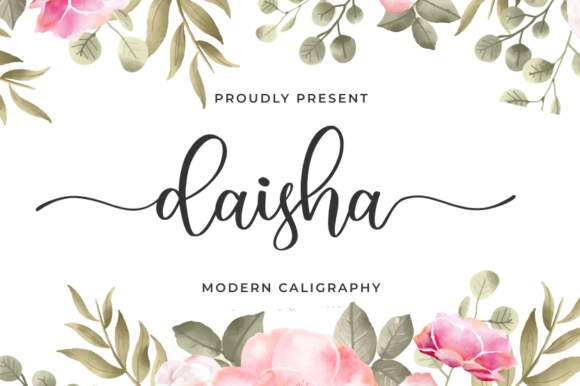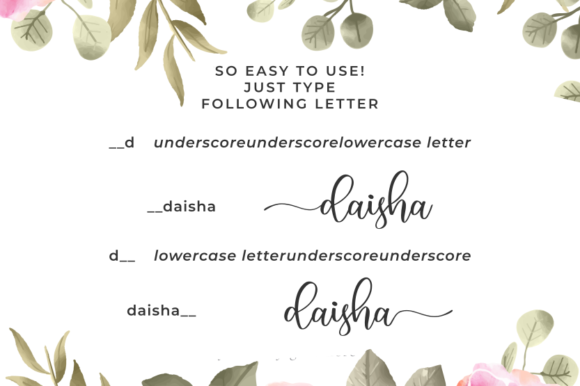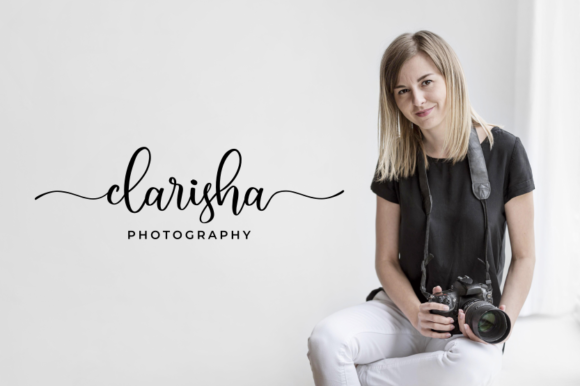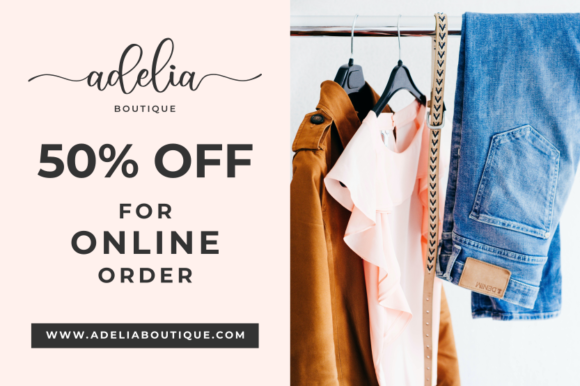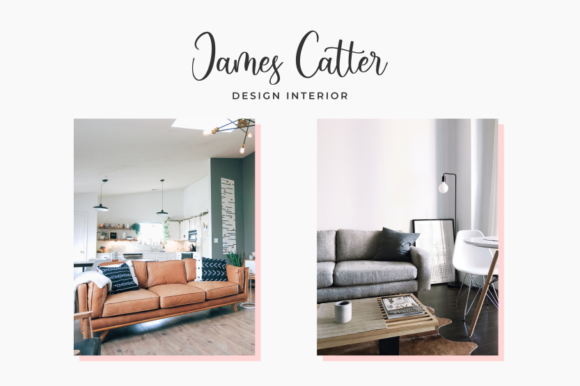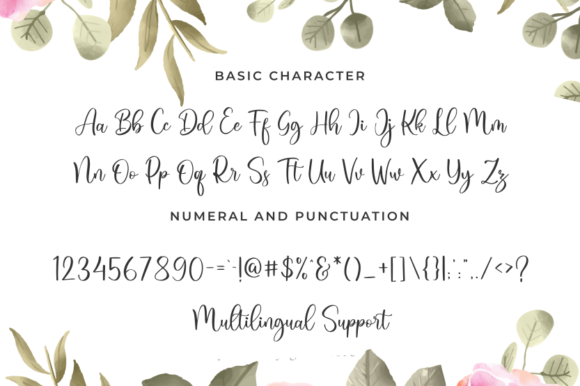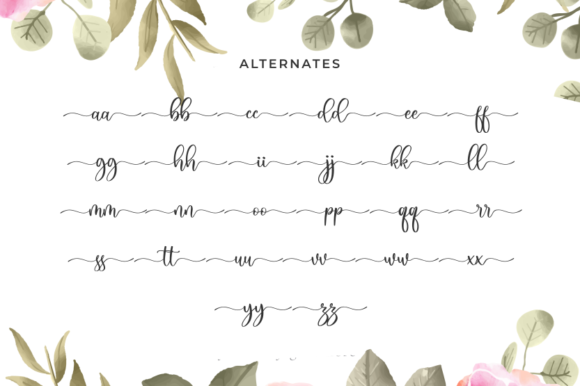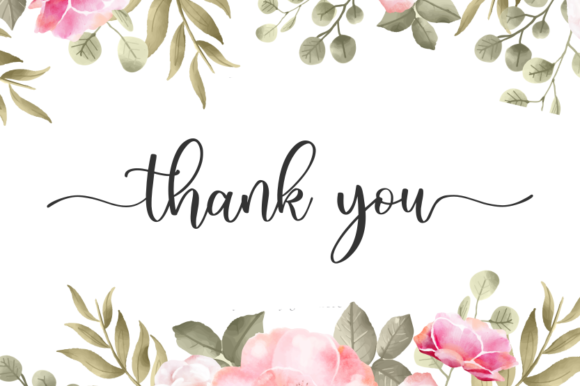
Daisha Font
About Daisha Font
Daisha is a lovely and flowing handwritten font. It is PUA encoded which means you can access all of the glyphs and swashes with ease! It features a varying baseline, smooth lines, gorgeous glyphs and stunning alternates. Fall in love with its incredibly versatile style and use it to create spectacular designs!